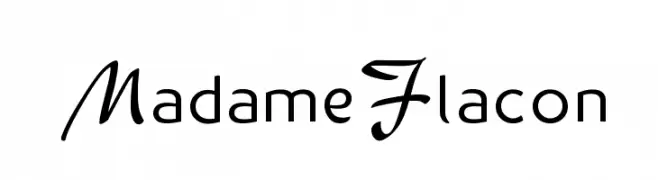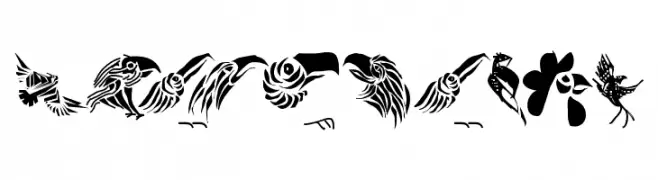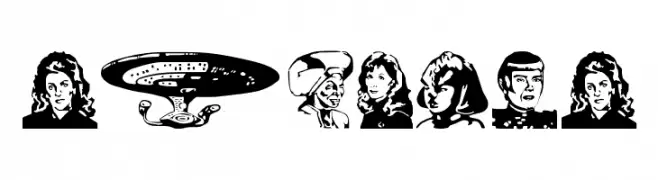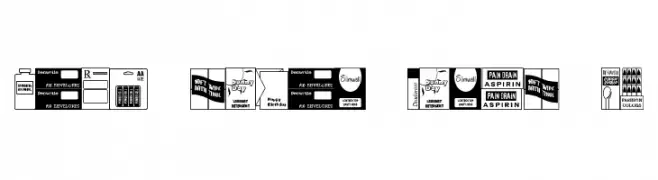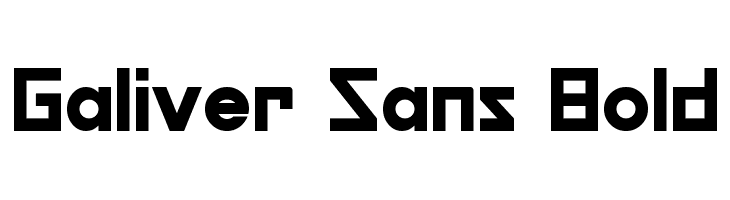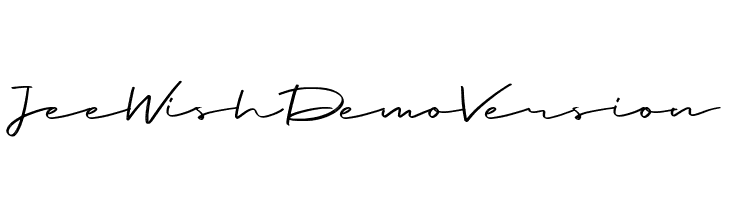
A decorative font with uppercase letters inside tree silhouettes.
An elegant and artistic font with cursive-like uppercase and clean lowercase letters.
A decorative font with characters designed as bird shapes, offering a whimsical and artistic style.
A modern, geometric font with playful curves and a futuristic style.
A bold, decorative font with a vintage, textured style.
A decorative, sci-fi themed display font with character illustrations and bold sans-serif text.
A playful, retro font inspired by vintage drugstore signage.
A dynamic and elegant script font with flowing letterforms and artistic flair.